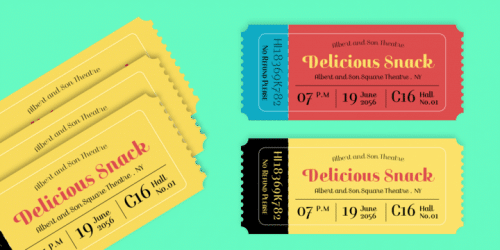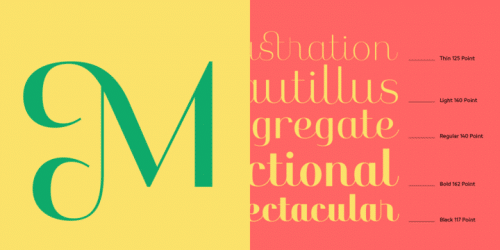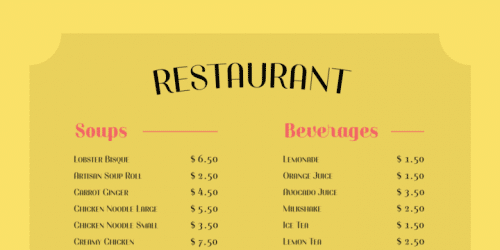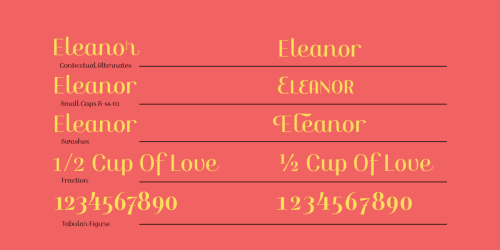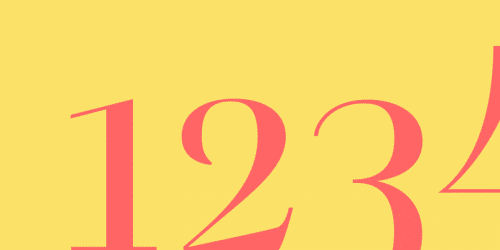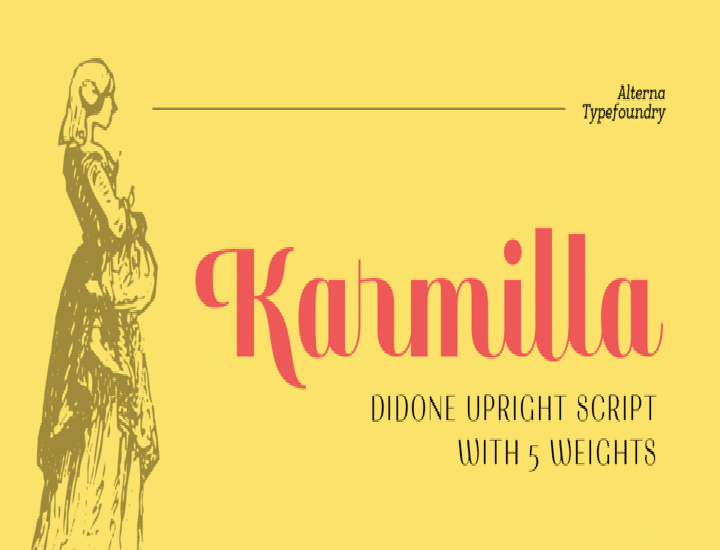
Karmilla Font Family
Karmilla is a Didone upright script styled typeface. Strong contrast between thick and thin lines. Presenting a luxurious and Feminine character and creating more elegant, classical design.
With a wide range of Latin based language support and a lot of features such as Swash, Stylistic Set, Small Caps and more.